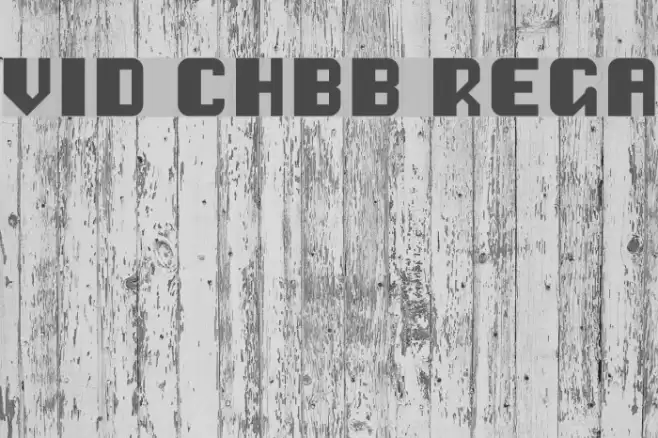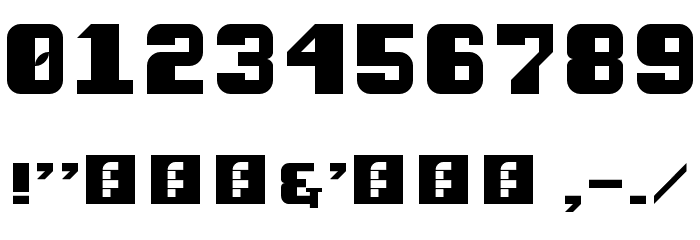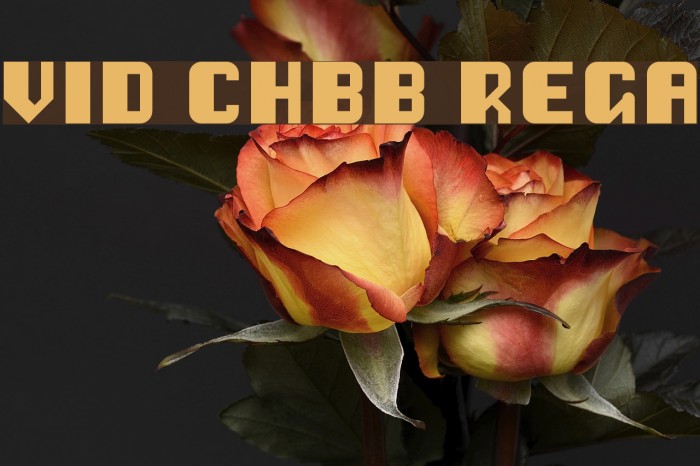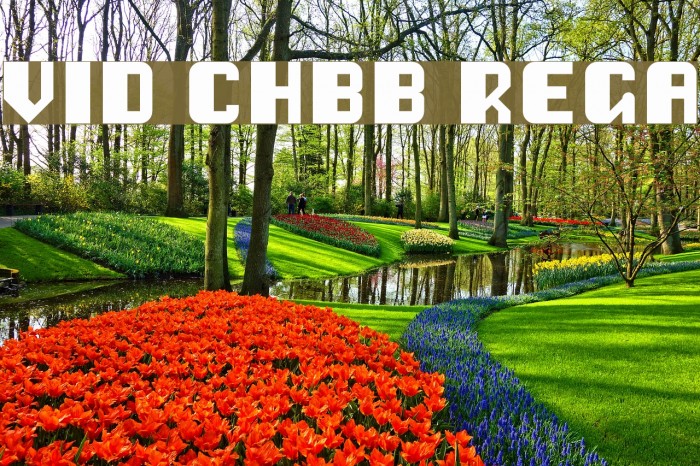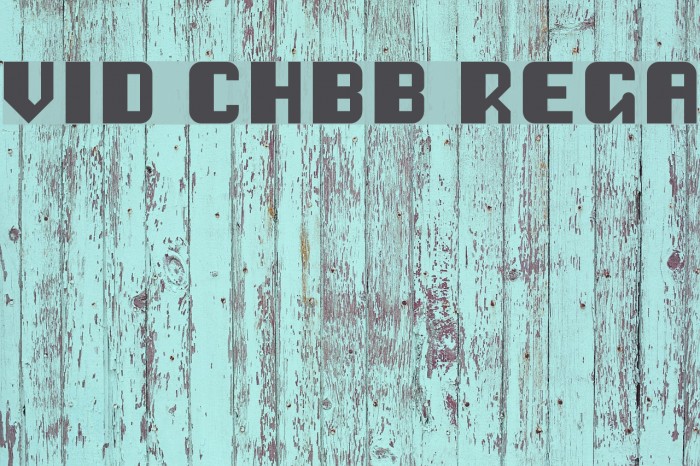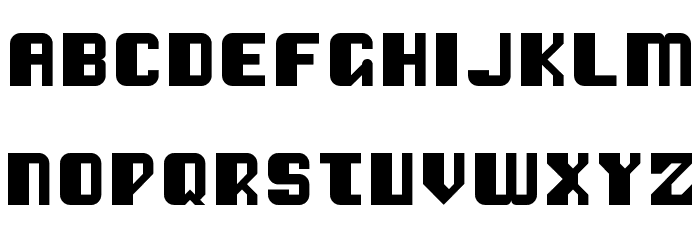
Vipond Chubby Regular Font
Vipond Chubby Regular Description
This font features a bold and robust design with a strong geometric structure. The characters are blocky and wide, creating a powerful visual impact. The uppercase letters are particularly striking, with a uniform height and width that convey a sense of stability and strength. The lowercase letters maintain the same boldness, ensuring consistency throughout the typeface. The numerals are equally bold, making them stand out clearly. The special characters are designed to match the overall chunky aesthetic, providing a cohesive look across all glyphs. This font is ideal for projects that require a strong, attention-grabbing typeface.
A bold, geometric font with a strong, blocky design from Uncategorized fonts.
- Width: Expanded